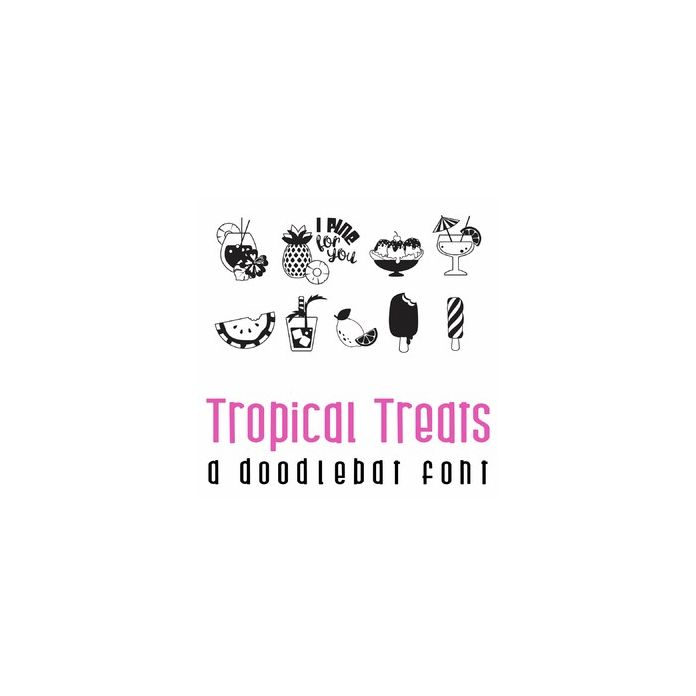
This fun doodle style doodlebat font features 26 tropical treats and drinks Perfect for cards, crafts, gifts, decor, scrap book pages, planner stickers and more!